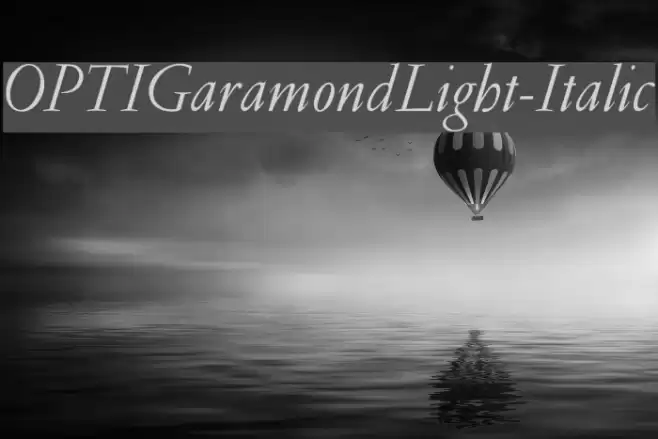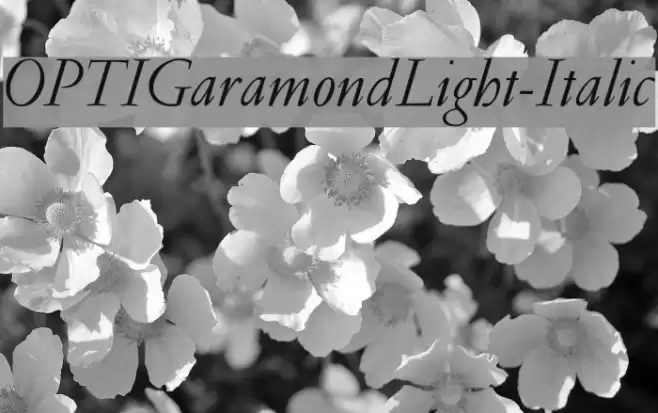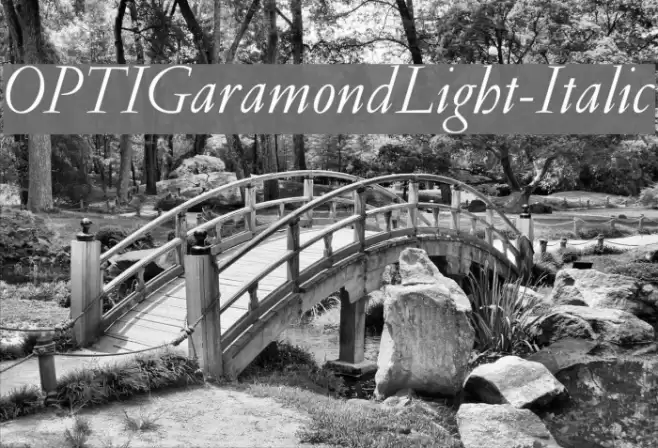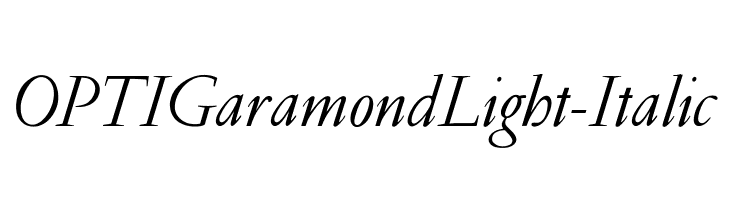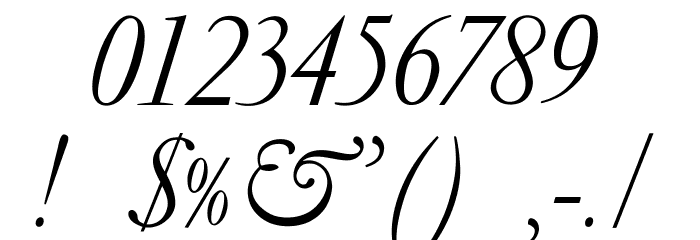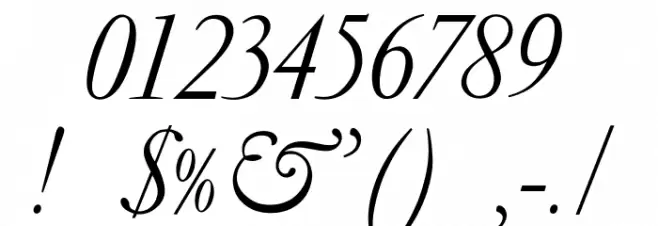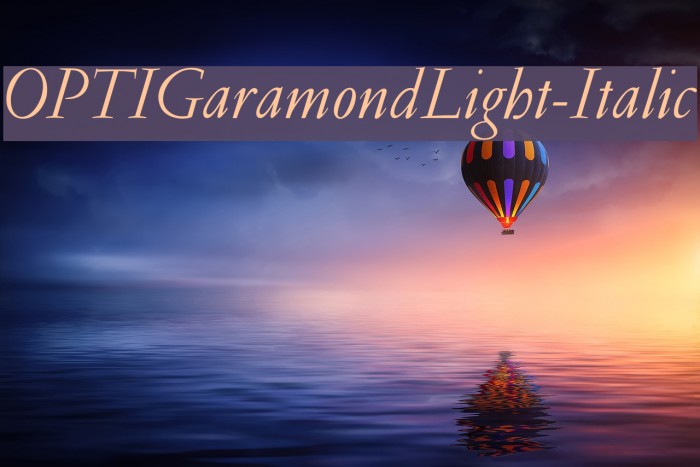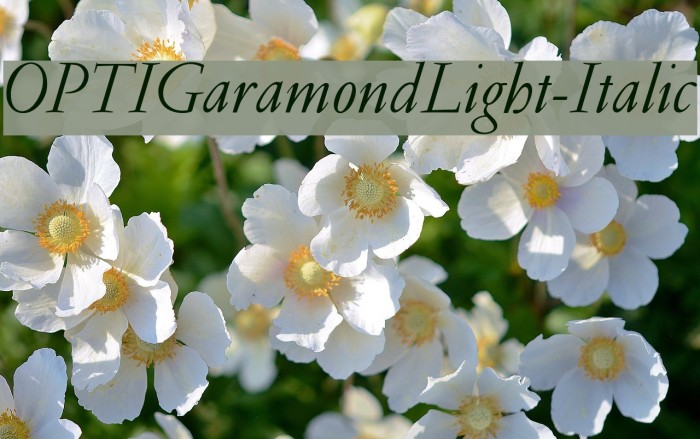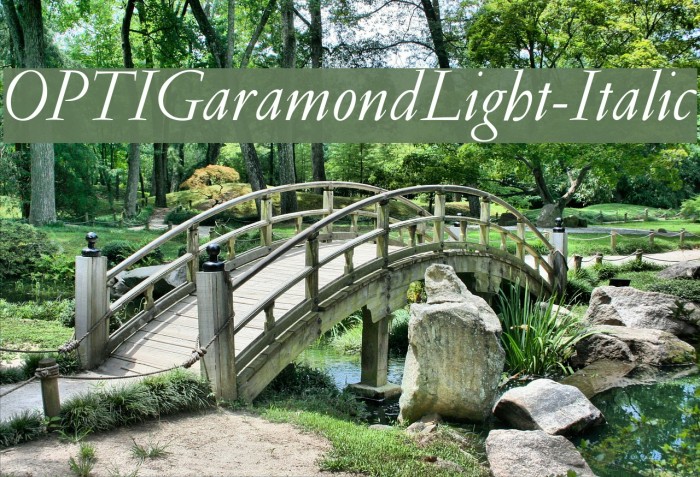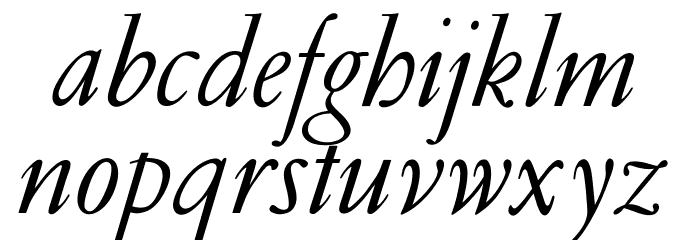
OPTIGaramondLight-Italic
This elegant typeface features a classic serif design with a refined and sophisticated appearance. The letters are slightly slanted, giving it an italic style that adds a touch of elegance and fluidity. The strokes are thin and delicate, contributing to a light and airy feel. The serifs are pronounced yet subtle, enhancing readability while maintaining a graceful aesthetic. This font is ideal for conveying a sense of tradition and formality, making it suitable for a variety of applications where a touch of class is desired.
A classic serif typeface with an elegant italic style and light strokes.
- Proposed Projects: Ideal for formal invitations, elegant branding, book covers, and editorial design.
- Category: Serif
- Weight: Light
- Overall Style: Classic